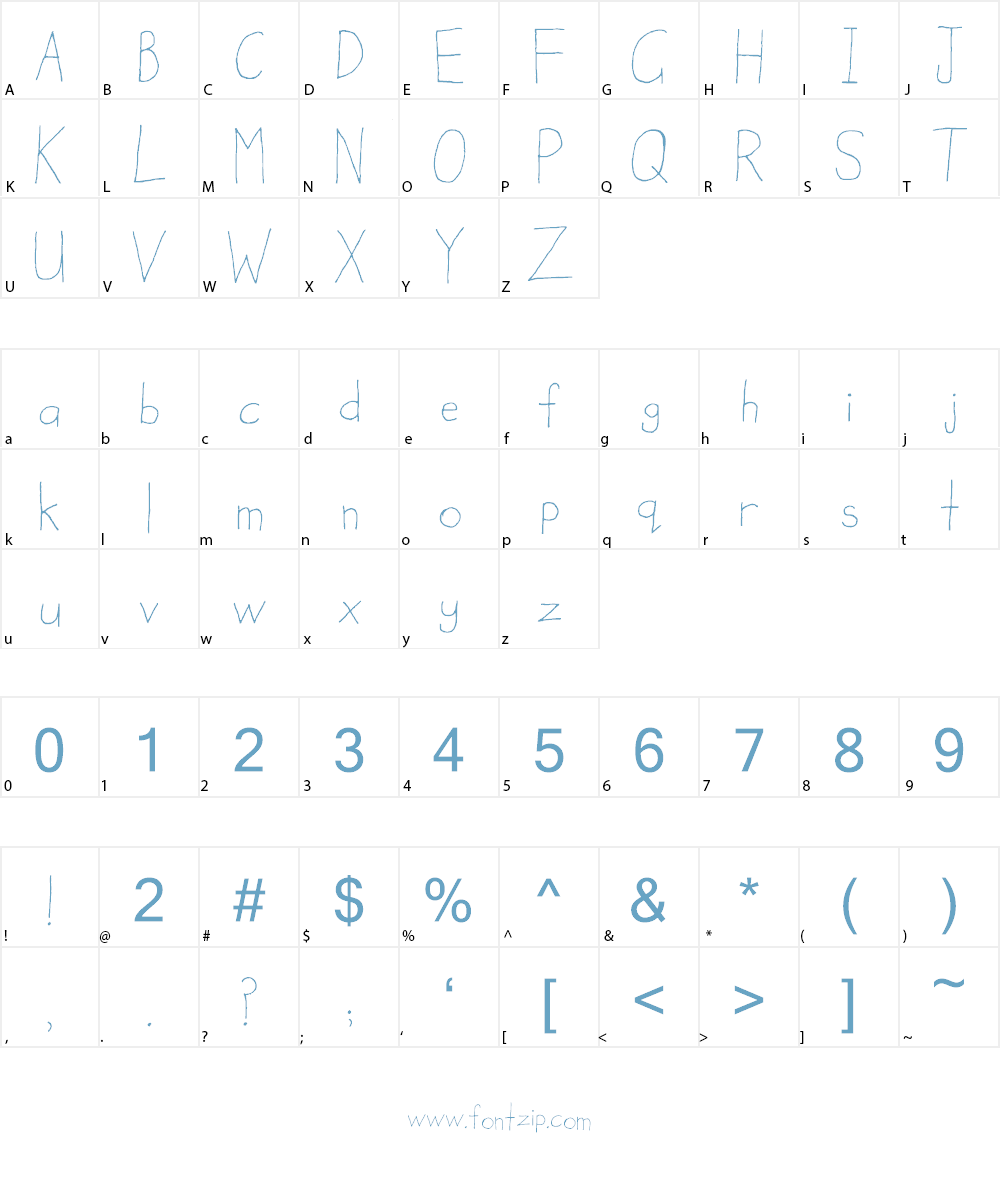
This is actually my normal handwriting when I'm printing neatly! The background image is free to use from Pixabay. If you would like to use this font for commercial purposes, it only costs 99c at https://www.creativefabrica.com/designer/shelley-2 Thank you!!